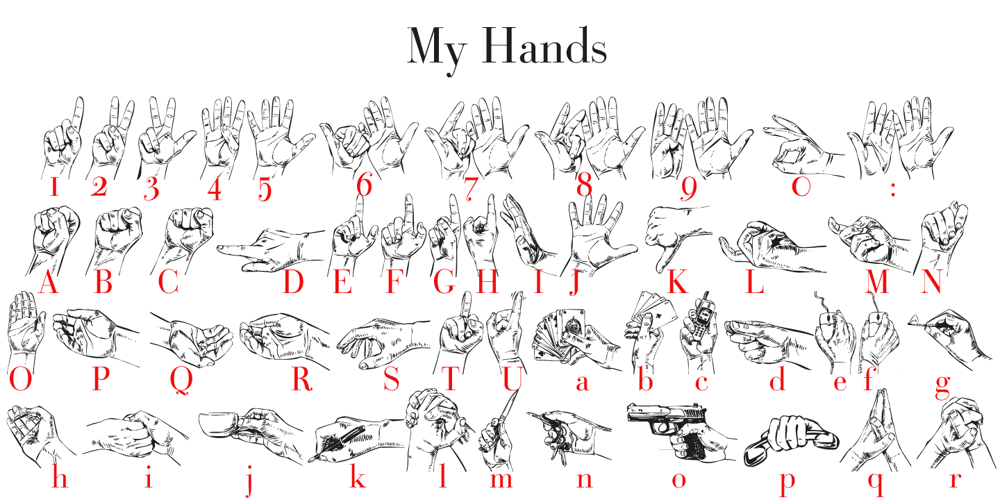
My Hands Font Family was designed by Gert Wiescher and published by Wiescher Design. My Hands contains 1 styles and family package options. The hands in this font are the pointing, counting, threatening, signaling, demonstrating and playing hands I use in my own design projects. I have drawn them all with a felt-tip marker, scanned and digitized for use in a font. This picture font is more user-friendly than having single ps-files. I usually convert the letter to paths once I have decided which one to use, because I might want to fill the lines or background with different colors. Yours very handy, Gert Wiescher.